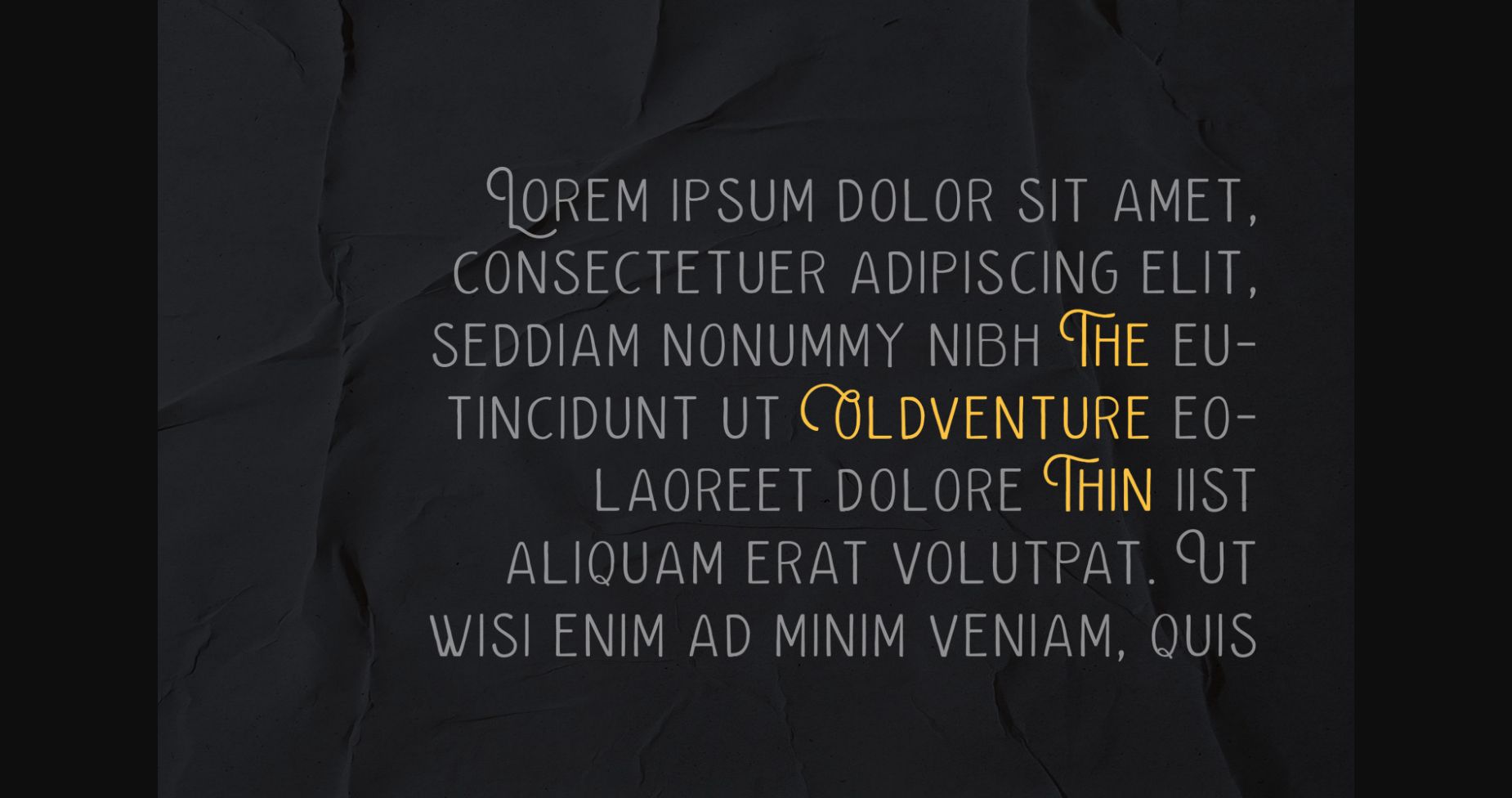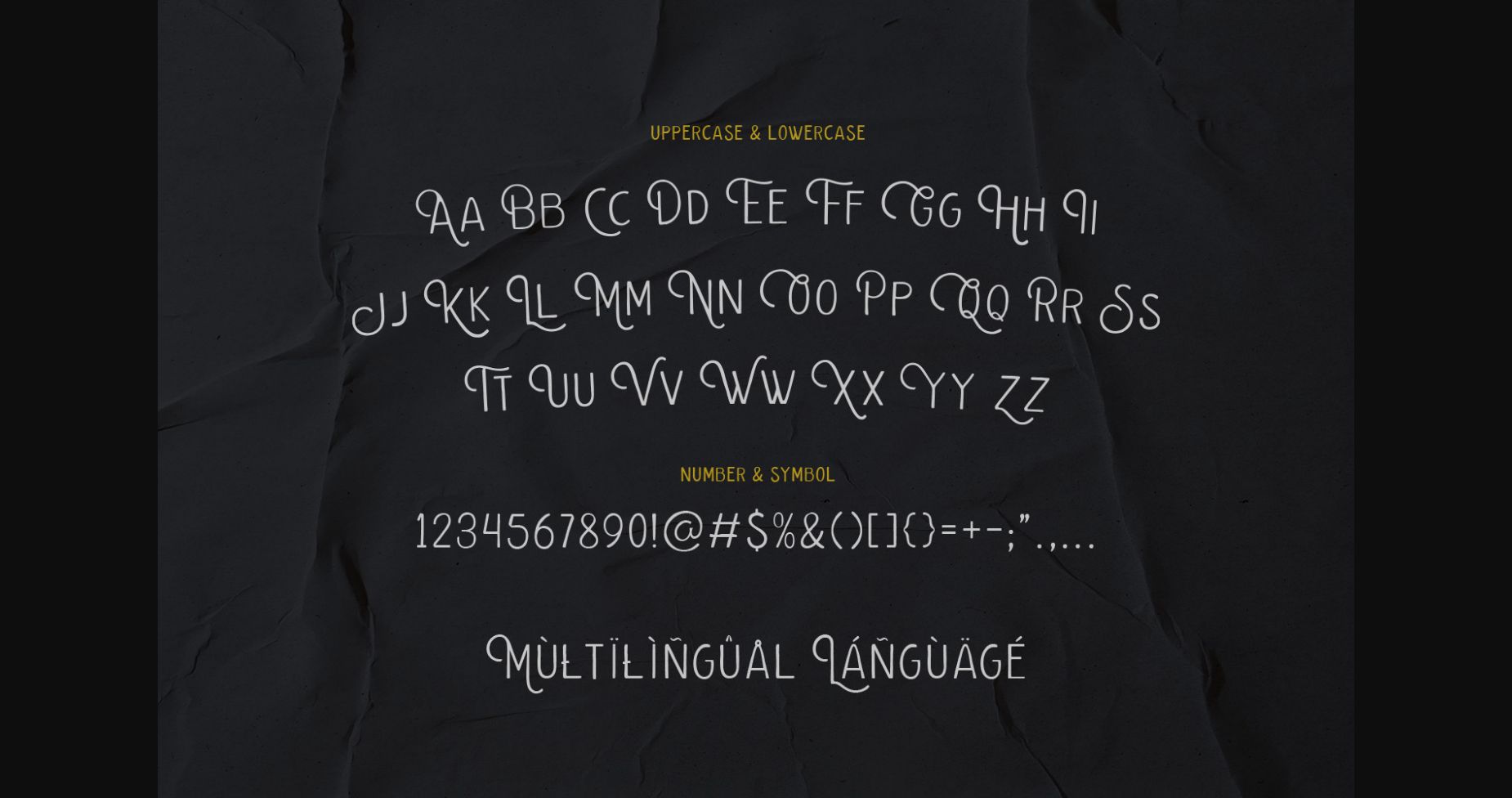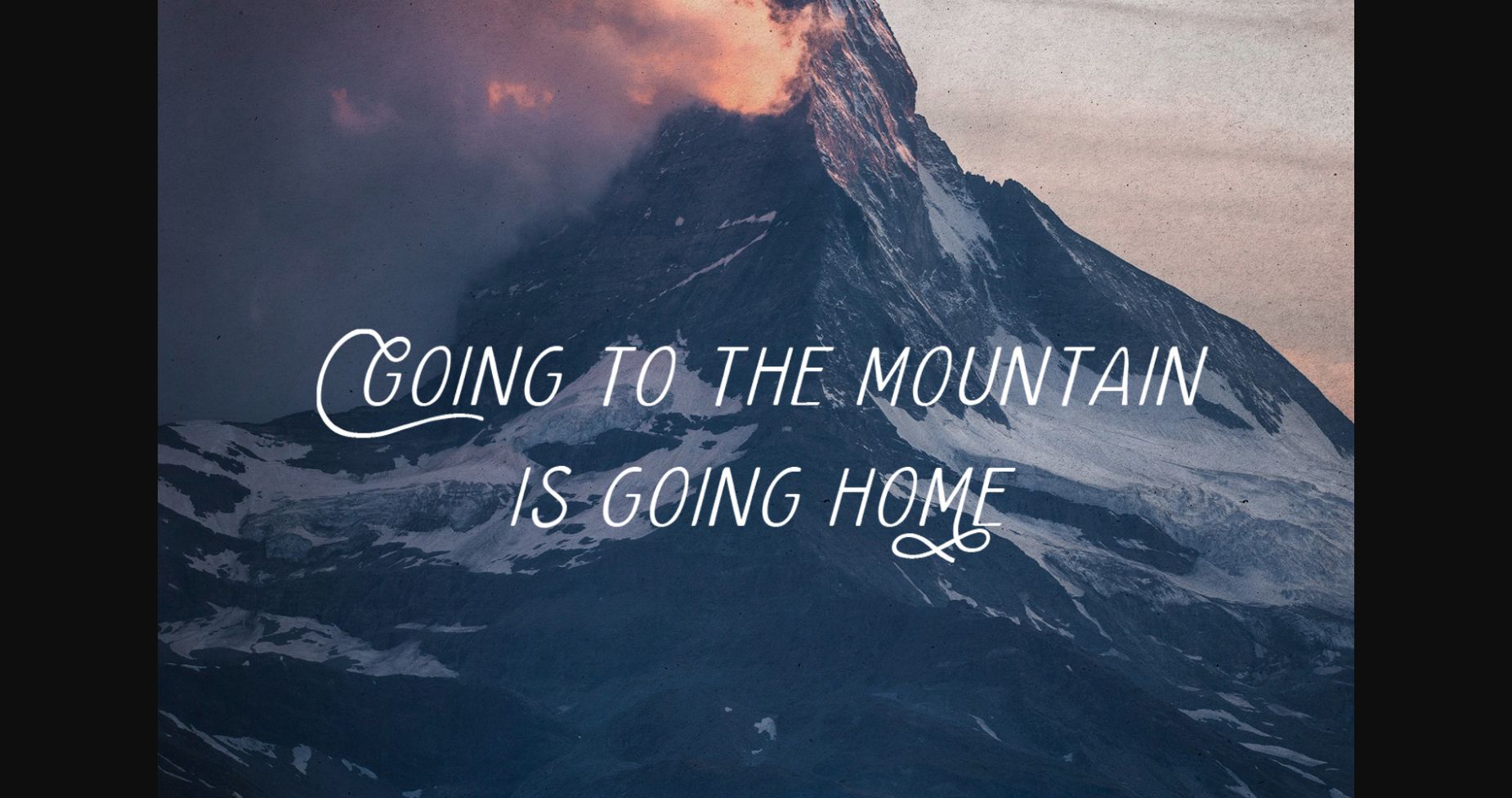
About The Oldventure Font
The Oldventure is a delicate and sans serif font. It will elevate a wide range of crafting ideas, from cards, to branding, labels and much more.